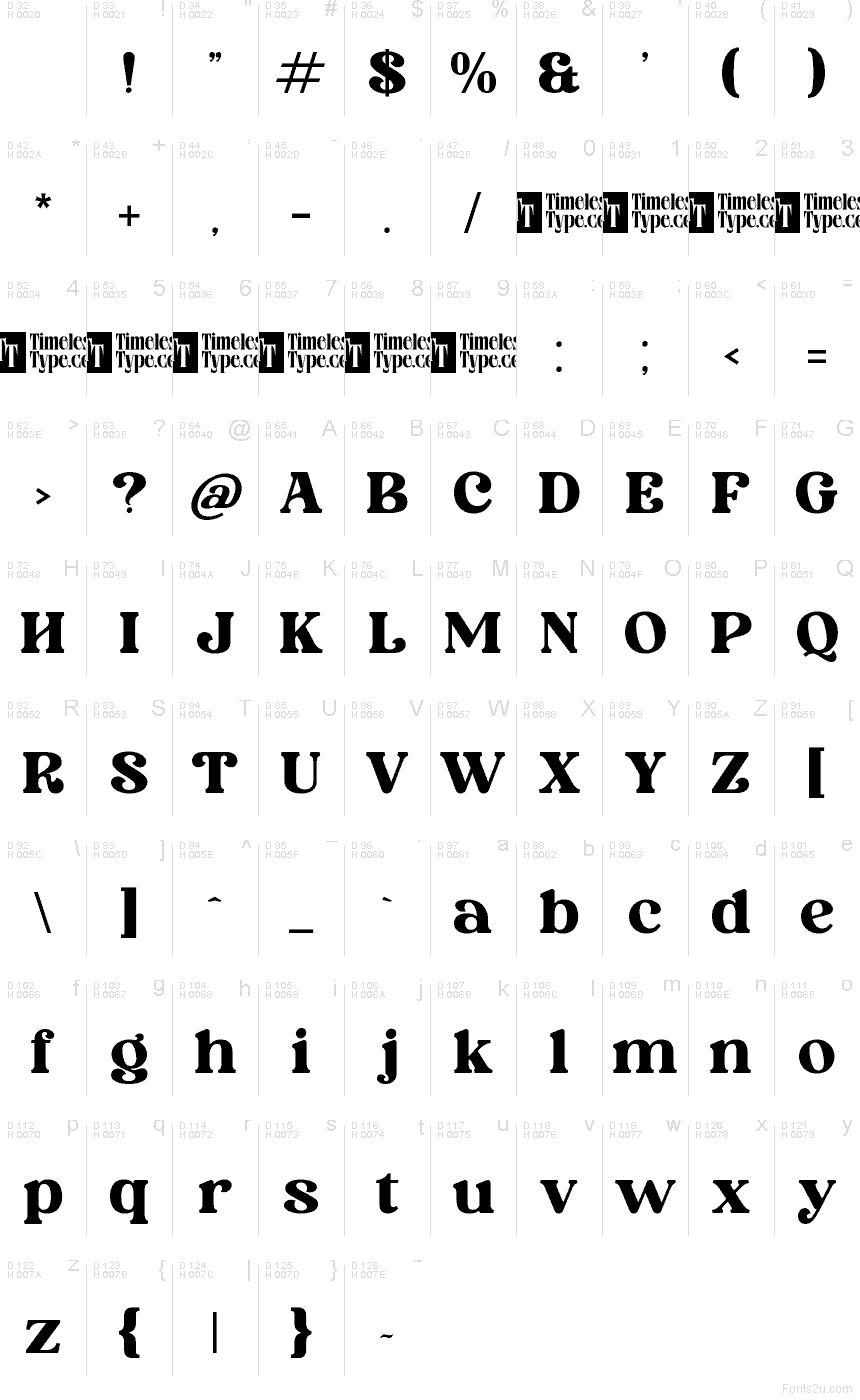
Aroma Vintage by TimelessType.co is a free retro serif display font with a soft, old print mood. The letters feel full and rounded, with heavy curved forms, compact spacing, and wedge-like serifs that give the font a warm, slightly nostalgic voice rather than a crisp modern one.
It fits naturally in cafe branding, packaging, poster headlines, book covers, and editorial title treatments where that vintage tone can carry the page. As a free font, it also makes sense for short logos and pull quotes, since the broad curves and sturdy serif details give even brief words a settled, familiar presence.